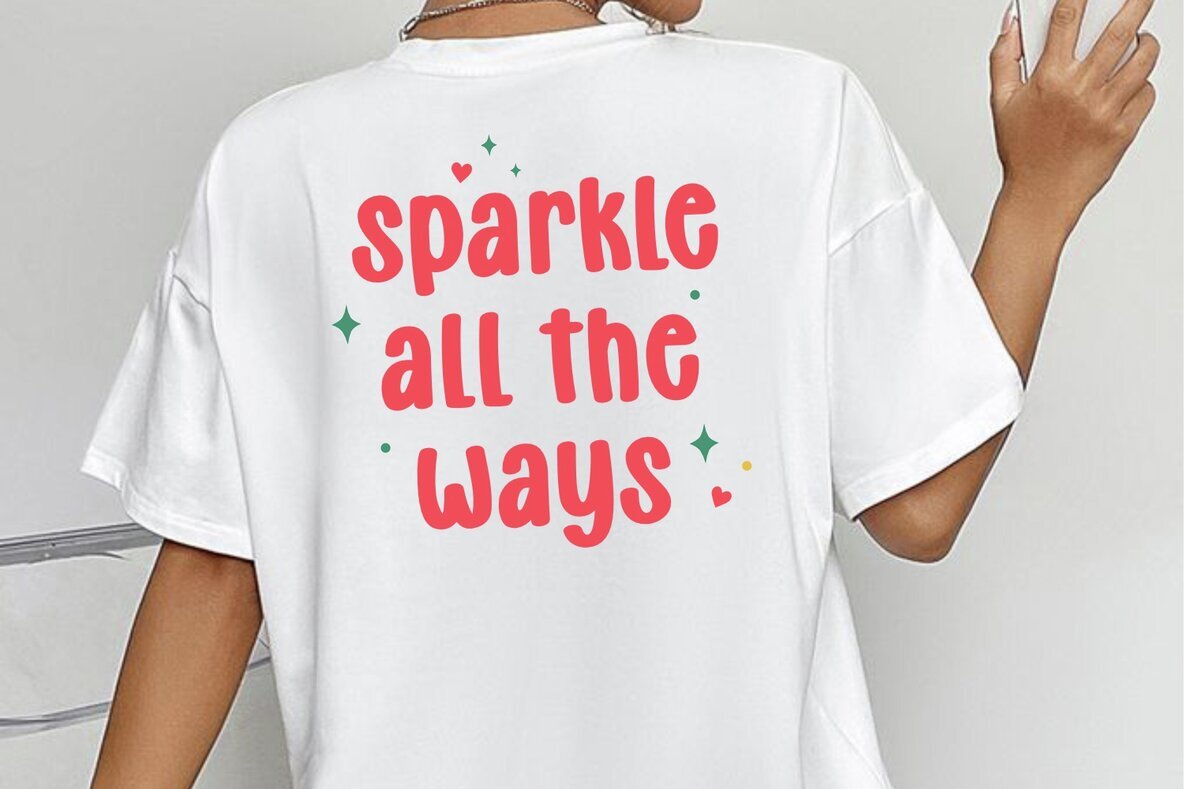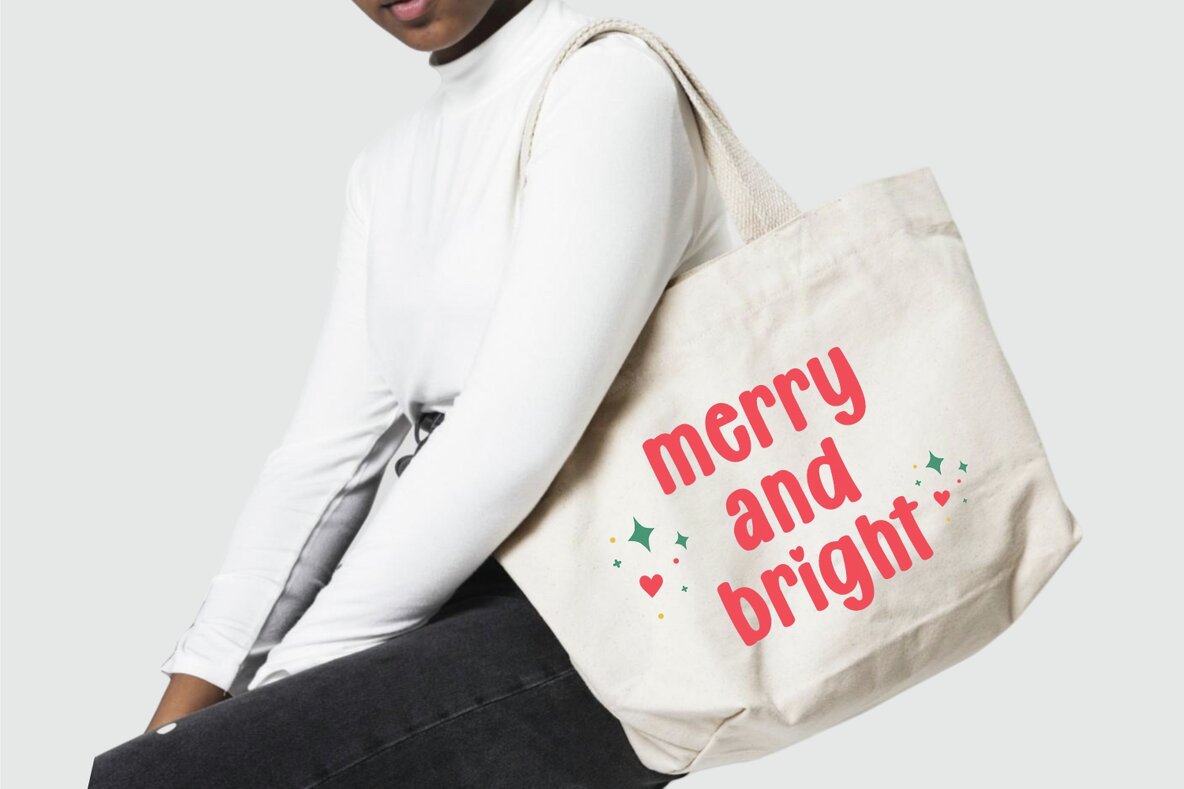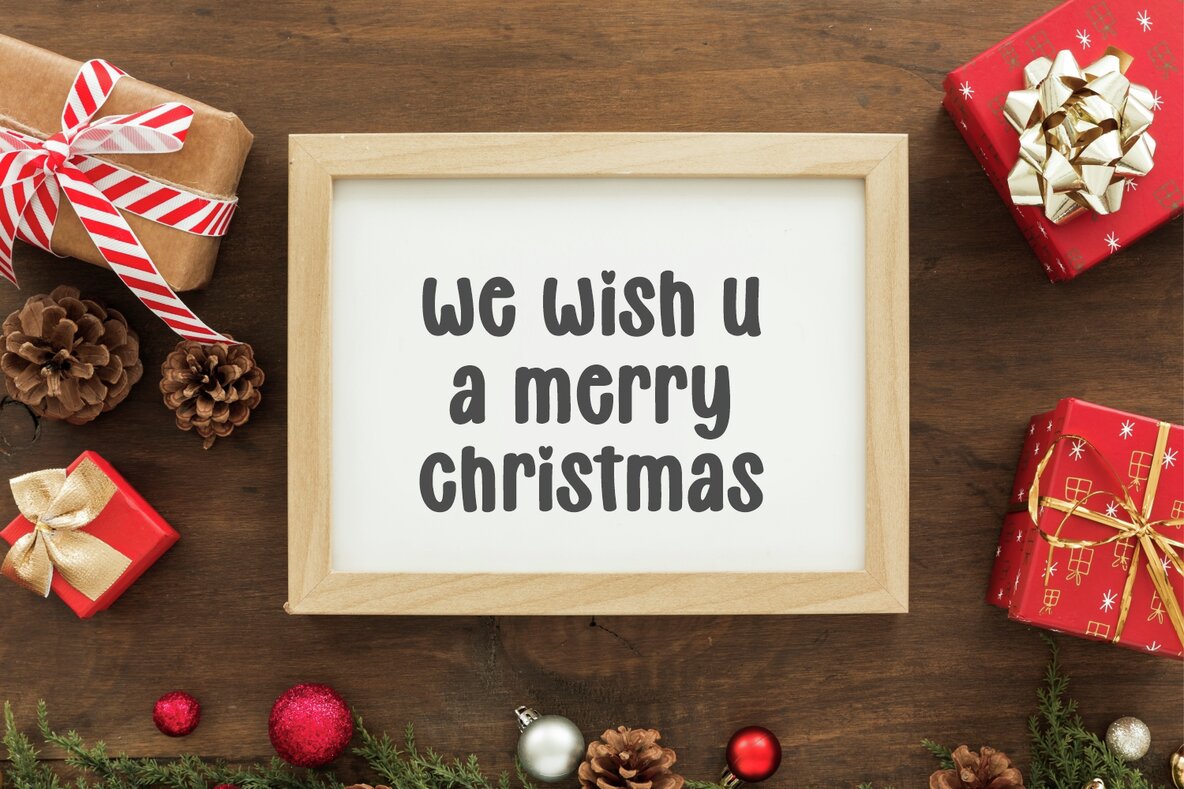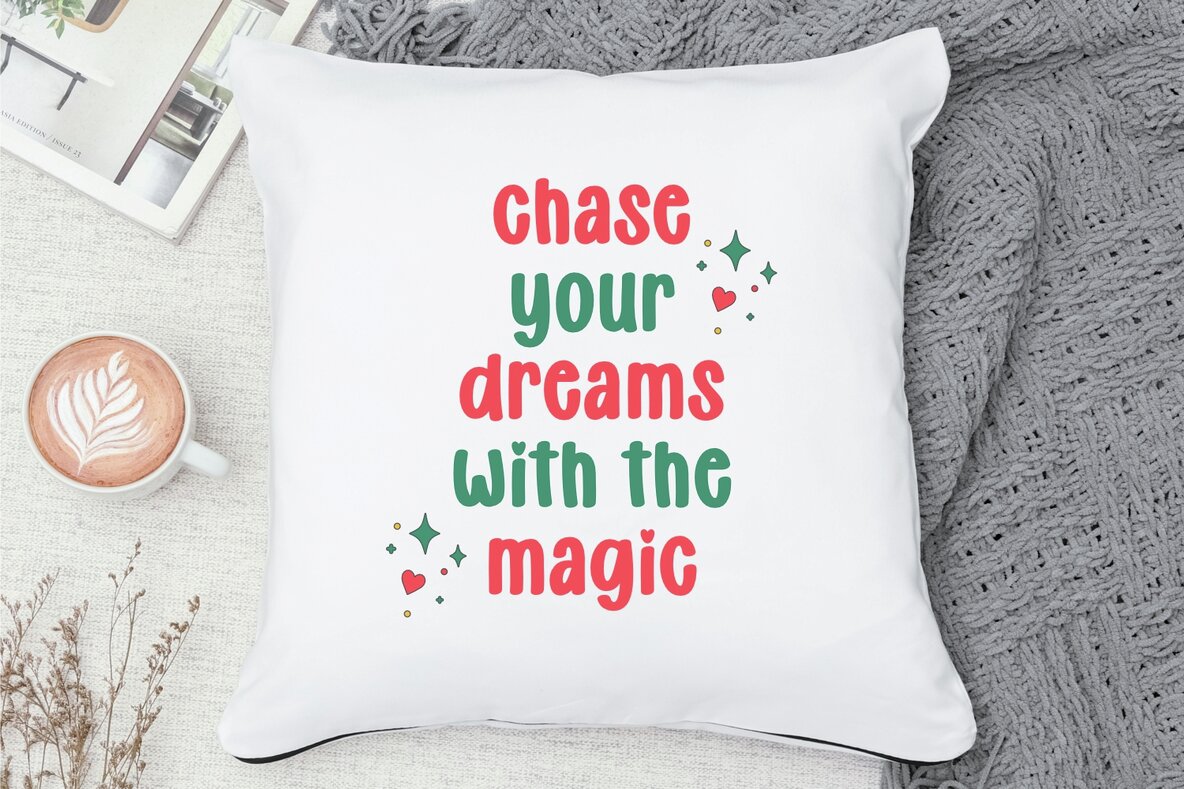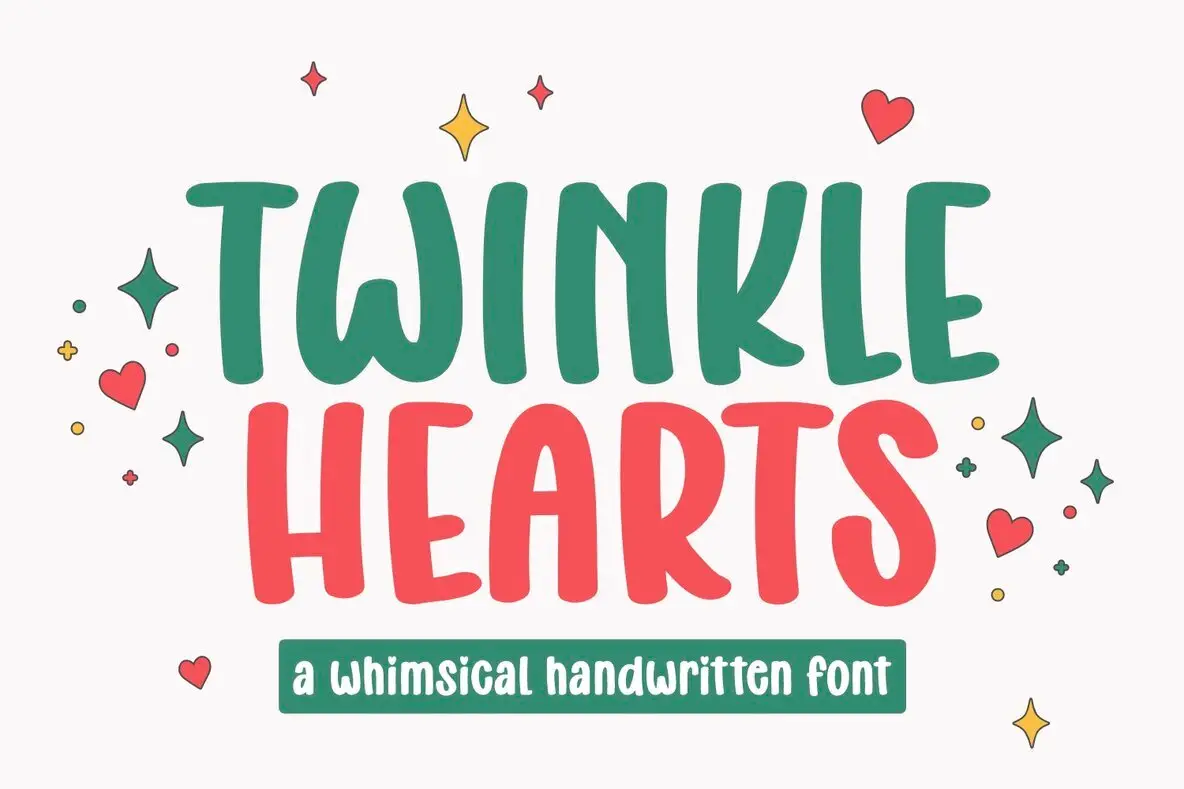
Twinkle Hearts Font
Twinkle Hearts is a charming handwriting-style font that adds warmth and personal touch to your designs. Its unique appeal makes it ideal for festive projects, homemade crafts, invitations, and greeting cards. Whether you're working on logo designs or enhancing your branding materials, Twinkle Hearts brings a whimsical handwritten aesthetic that perfectly complements any creative project.
This endearing font effortlessly enhances social media content and print materials, offering a delightful quality that captivates your audience. Incorporate Twinkle Hearts into your next project to infuse it with a personal and endearing flair, making your designs stand out with its charming appeal.